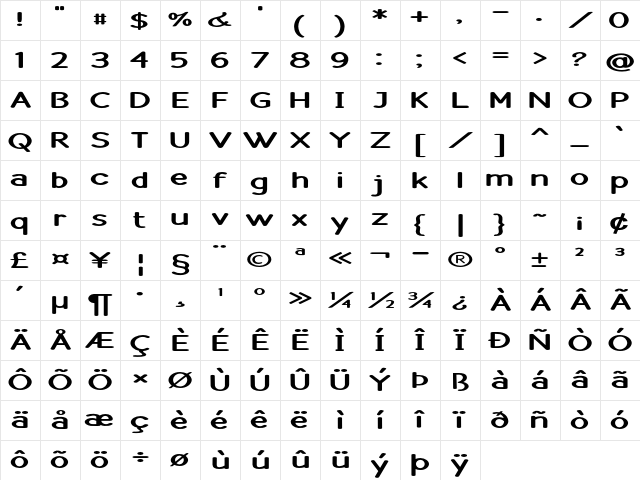
Clearwater Extra-expanded Bold
Style: Extra-expanded Bold
Clearwater Family
Clearwater Extra-expanded Bold
Design Context for Clearwater
Clearwater is a composed and adaptable typeface that performs quietly and consistently across a wide range of design contexts. Its bold stroke weight gives it real presence on the page.